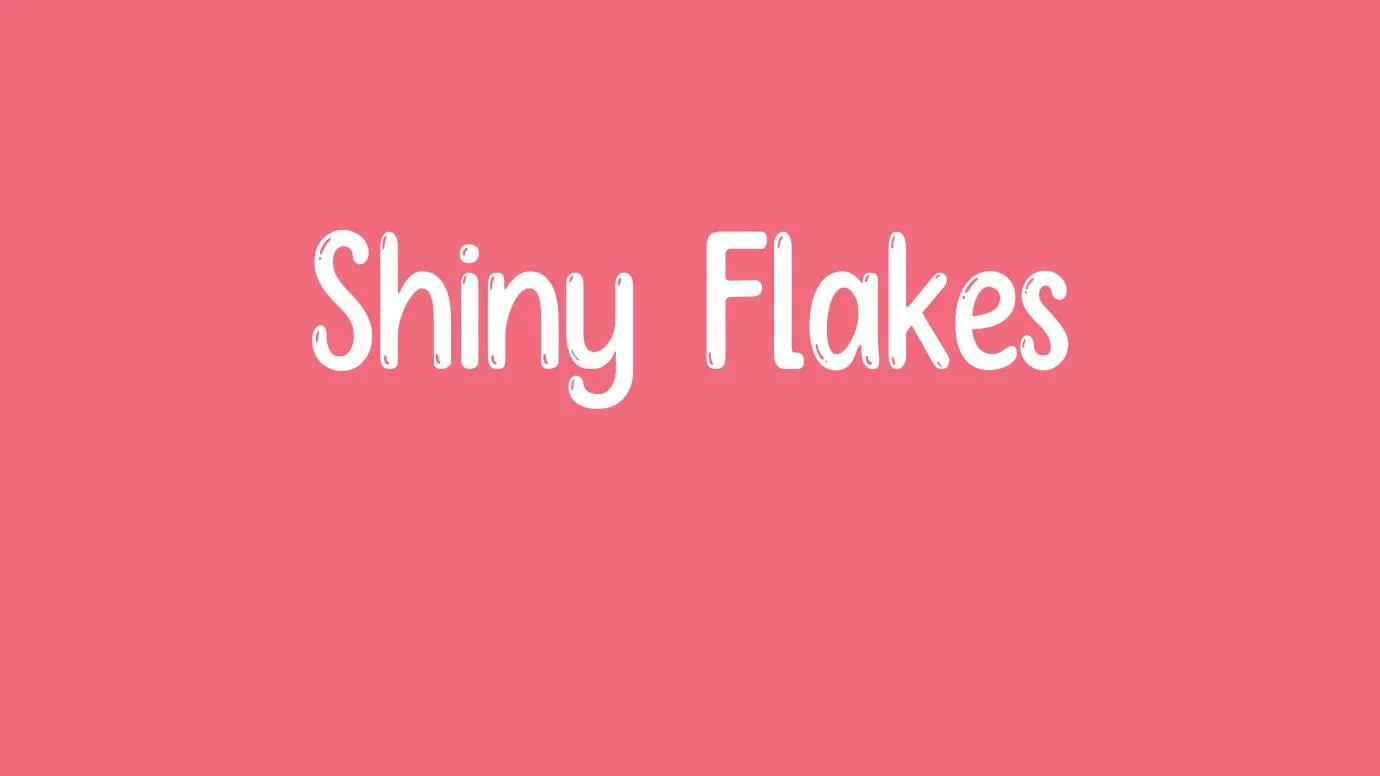
Shiny Flakes is a very cute and clear fancy-type font. This amazing font was designed by Niskala Huruf. All types of projects can be made by using this font. It can be downloaded on all operating systems like Windows, PC, Mac, Android, and Linux.
It can be used for pairing with other fonts, such as hanston font to give a more attractive look to your projects. It also supports many international languages.